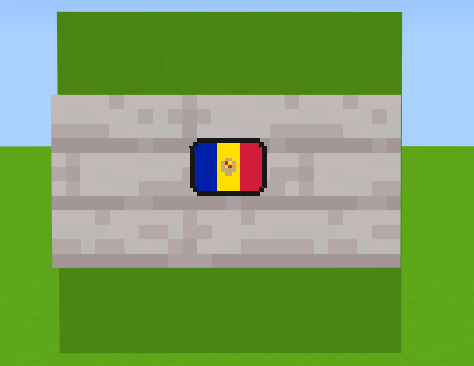
A font containing world flags for use in Minecraft.
Along with PUA codes for easy application.
Una fuente que contiene las banderas del mundo para usar en Minecraft.
junto con los codigos PUA para poder aplicarlos sin difficultad